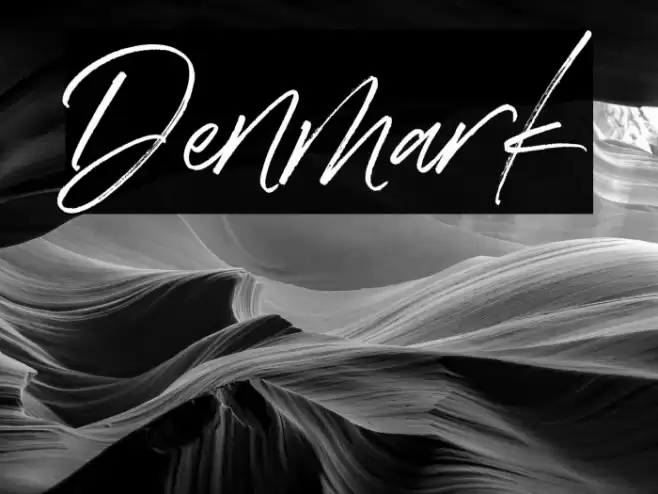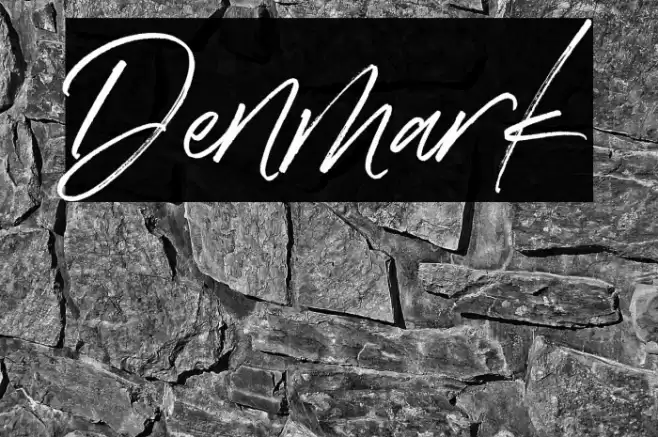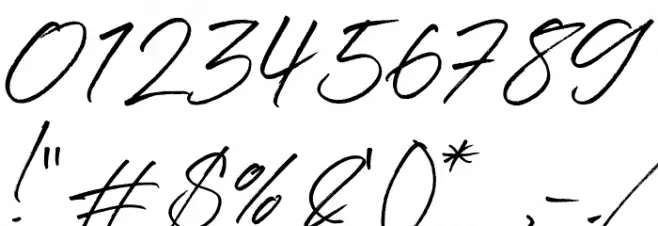
Denmark Font
Denmark Description
This font exhibits a dynamic and expressive handwritten style, characterized by fluid and sweeping strokes that convey a sense of motion and elegance. The uppercase and lowercase letters are crafted with a natural, cursive flair, featuring varying stroke widths that add depth and personality. The numerals and special characters maintain the same lively aesthetic, ensuring consistency across all elements. This font's design is both artistic and legible, making it suitable for creative projects that require a personal touch.
A dynamic, expressive handwritten font with fluid, sweeping strokes from Uncategorized fonts.
- Proposed Projects: Ideal for wedding invitations, personal branding, greeting cards, and artistic posters.
- Use Case: Logos, Headlines, Artistic projects